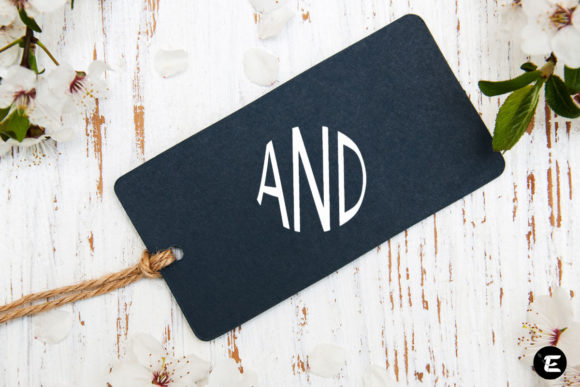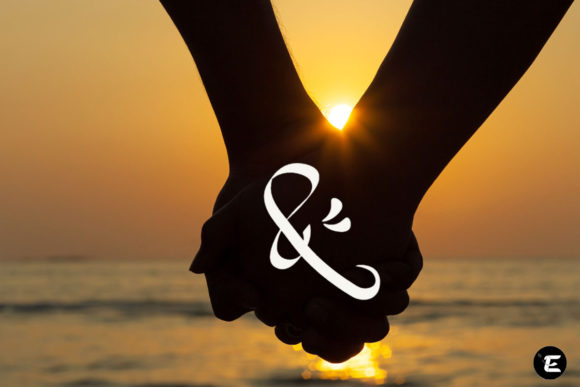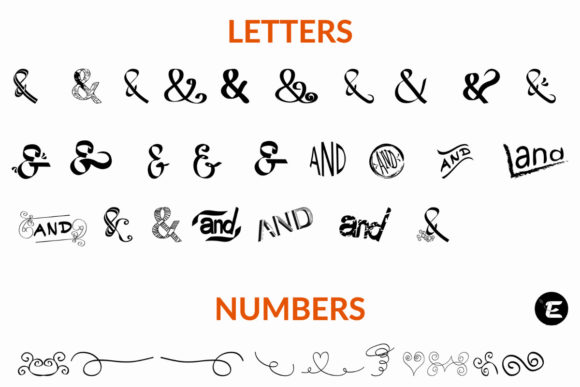
Discover the Versatility of And Font: A Unique Dingbats Font for Creative Projects
In the world of design, fonts play a crucial role in bringing creativity to life. Among the numerous fonts available, dingbats fonts have gained popularity for their unique and decorative appeal. One such font that has caught the attention of designers and crafters is the And Font. In this article, we’ll explore the features and benefits of And Font, and why it’s a valuable addition to your font library.
What is And Font?
And Font is a thoughtfully designed dingbats font that offers a wide range of decorative elements, making it a versatile tool for various design projects. Its unique design and extensive character set make it an excellent choice for designers, crafters, and anyone looking to add a personal touch to their creations.
Key Features of And Font
- Unique Design: And Font boasts a distinctive design that sets it apart from other dingbats fonts. Its elements are carefully crafted to add a touch of elegance and sophistication to any project.
- Extensive Character Set: With a wide range of characters, And Font offers endless possibilities for creative expression. From simple icons to complex illustrations, this font has got you covered.
- Versatility: And Font is suitable for various design projects, including but not limited to:
- Graphic design
- Digital art
- Crafting
- Paper crafting
- Stationery design
Benefits of Using And Font
And Font offers several benefits that make it a valuable asset to your font library:
- Enhance Your Creations: With And Font, you can add a unique touch to your designs, setting them apart from others.
- Time-Saving: The extensive character set and versatility of And Font save you time and effort in finding the perfect elements for your projects.
- Consistency: Using And Font ensures consistency in your designs, creating a cohesive look and feel.
- Inspiration: And Font’s unique design and decorative elements can inspire new ideas and creativity.
Tips for Using And Font Effectively
To get the most out of And Font, consider the following tips:
- Experiment with Different Sizes: And Font’s characters look great in various sizes, so don’t be afraid to experiment and find the perfect fit for your project.
- Combine with Other Fonts: Pair And Font with other fonts to create a unique and visually appealing design.
- Use as a Accent: Use And Font as an accent font to add a pop of personality to your designs.
And Font is a valuable addition to any designer’s font library. Its unique design, extensive character set, and versatility make it an excellent choice for various design projects. With And Font, you can enhance your creations, save time, and ensure consistency in your designs. Whether you’re a professional designer or a crafter, And Font is sure to inspire your creativity and take your designs to the next level.